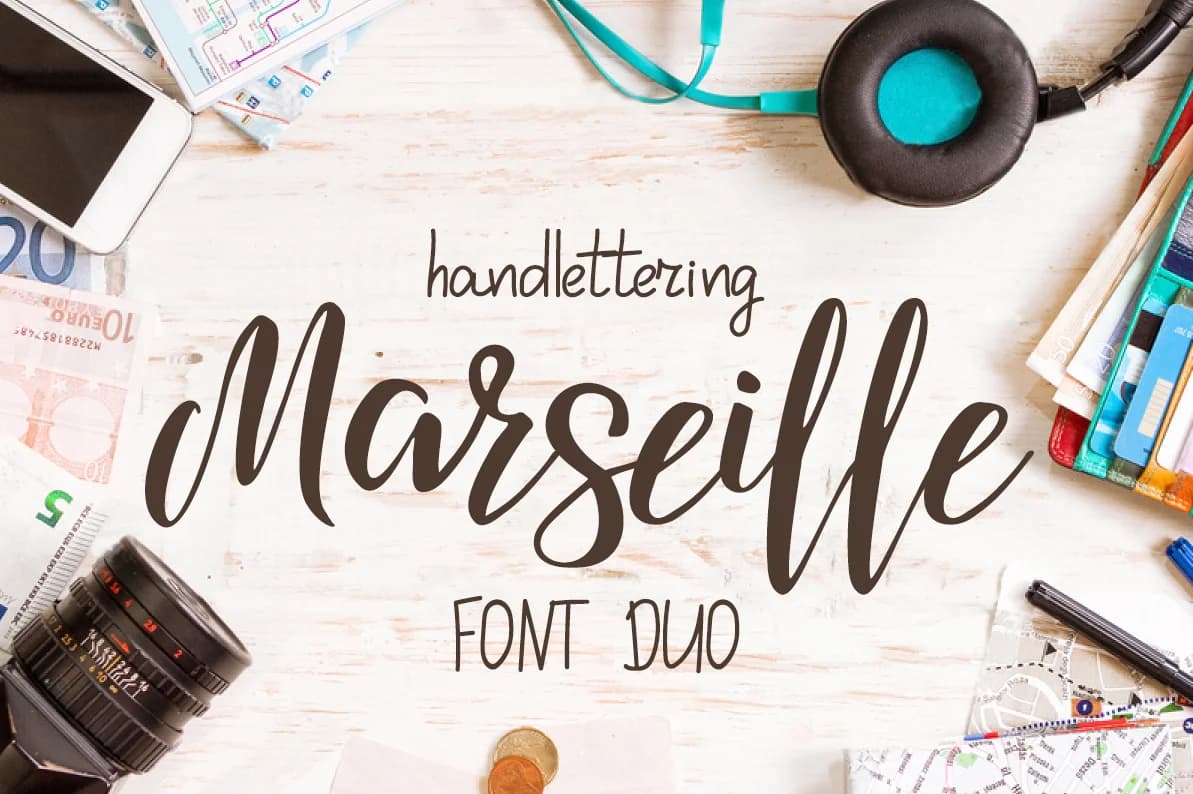
Marseille Font by tregubova.jul is a hand-lettered script collection that brings refined, flowing letterforms to contemporary design work. Available in both regular and thin weight variations, this dual-font system gives designers versatile typography that preserves the warmth of personal lettering while offering carefully balanced stroke contrast and professional finish.
Script fonts work best when precision meets artistry, and Marseille succeeds on both fronts. The collection shines for wedding invitation suites where delicate letterforms establish an upscale tone, luxury cosmetics packaging requiring handwritten appeal without sacrificing clarity, personalized greeting card designs that benefit from its flowing character, and sophisticated menu layouts for fine dining establishments. Decorative alternates and expanded glyph support enable meaningful customization across projects, allowing designers to maintain brand consistency while preserving the authentic hand-lettered quality that distinguishes artisanal work from generic commercial typography.
Boutique branding initiatives, personalized stationery systems, and artisanal product packaging all benefit from Marseille's weight flexibility. The thin variant provides refined accents alongside the fuller weight for primary headlines, creating visual hierarchy without losing the script's inherent character. This pairing ensures cohesion across varied applications while maintaining the handcrafted authenticity that resonates with luxury audiences today.
- Elegant, Flowing, Marseille Script
Marseille Font is a script font that shines as a display or heading face. Pair it with a clean sans-serif or serif font for body text β the contrast creates a clear hierarchy while the two styles stay balanced and easy to read.